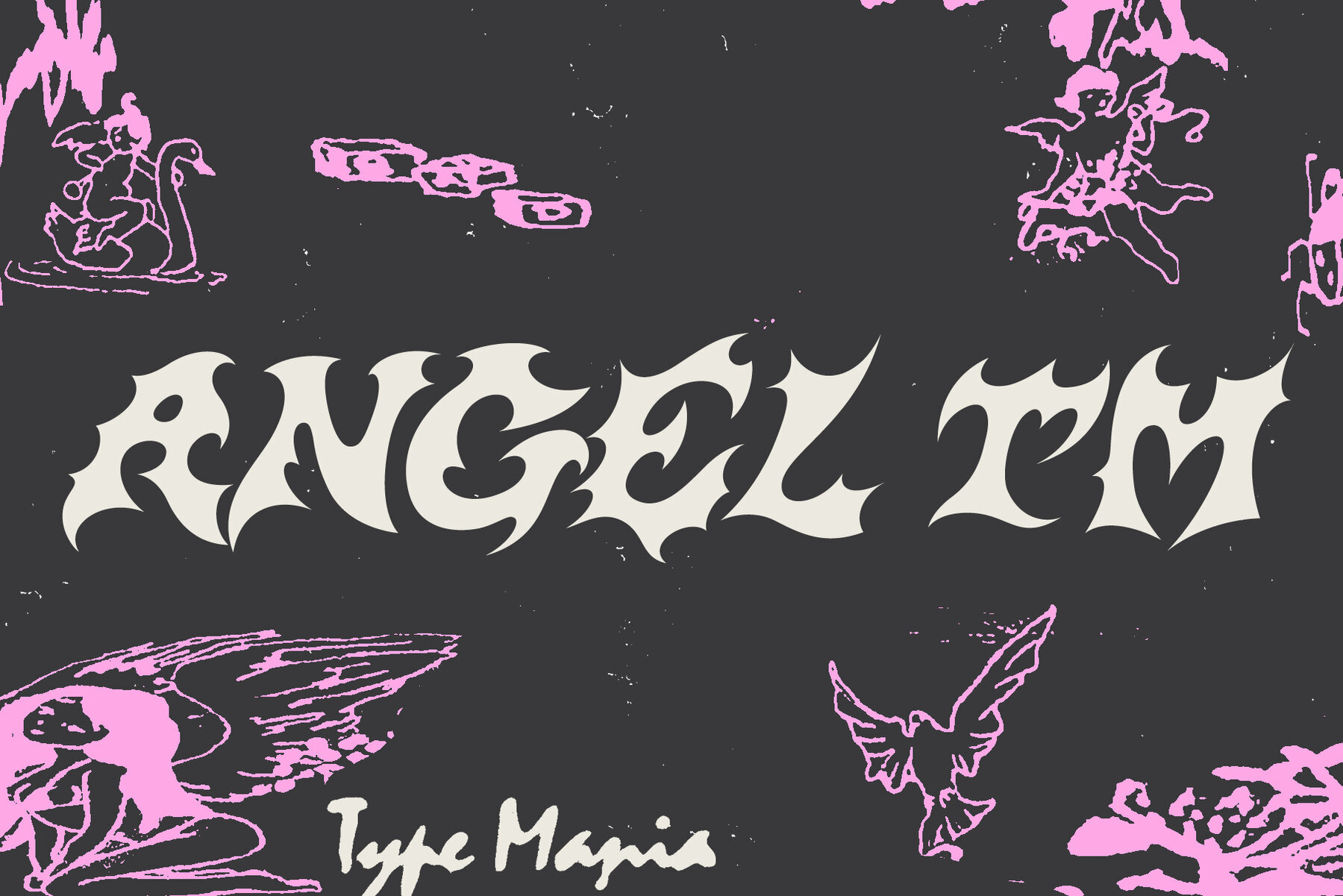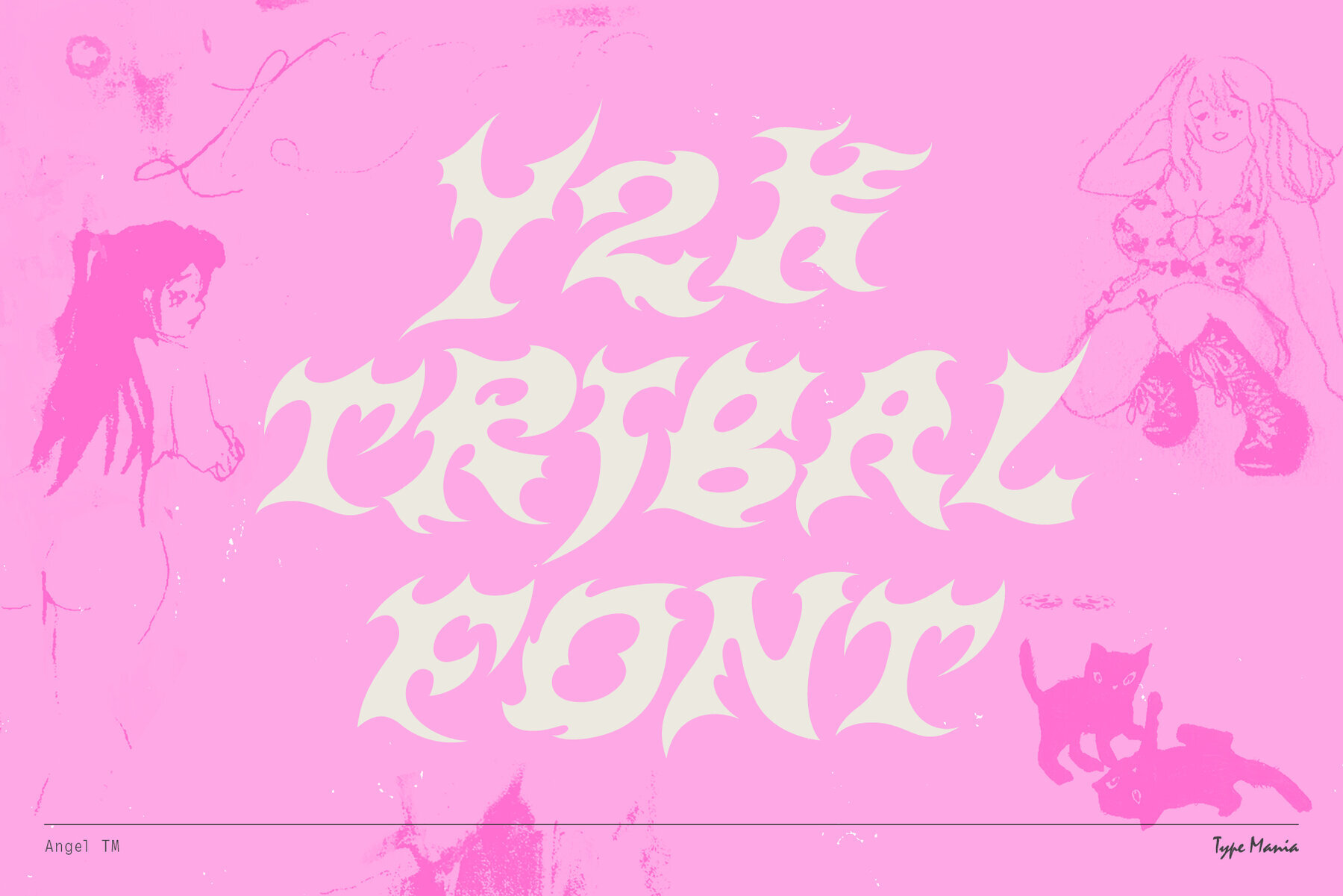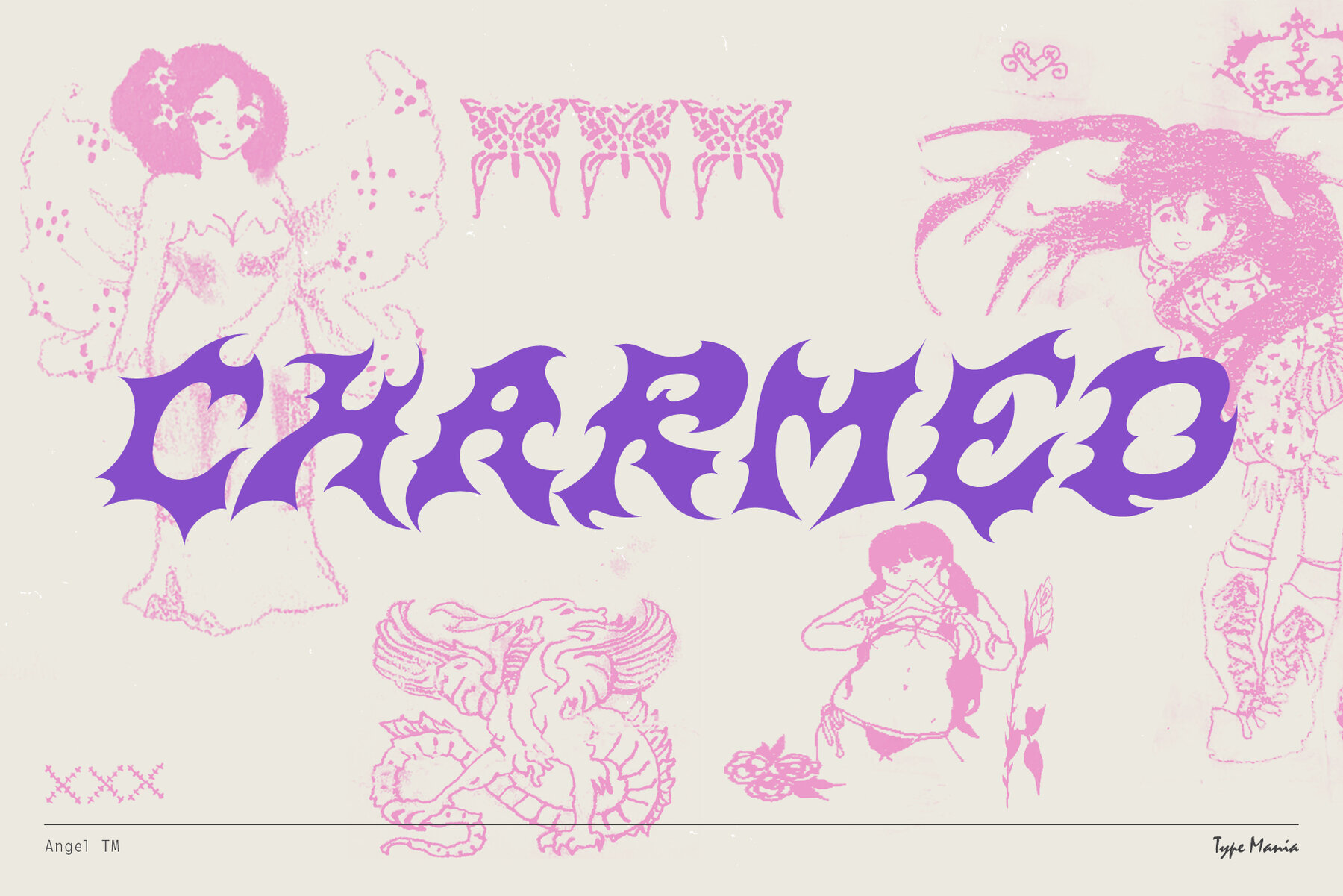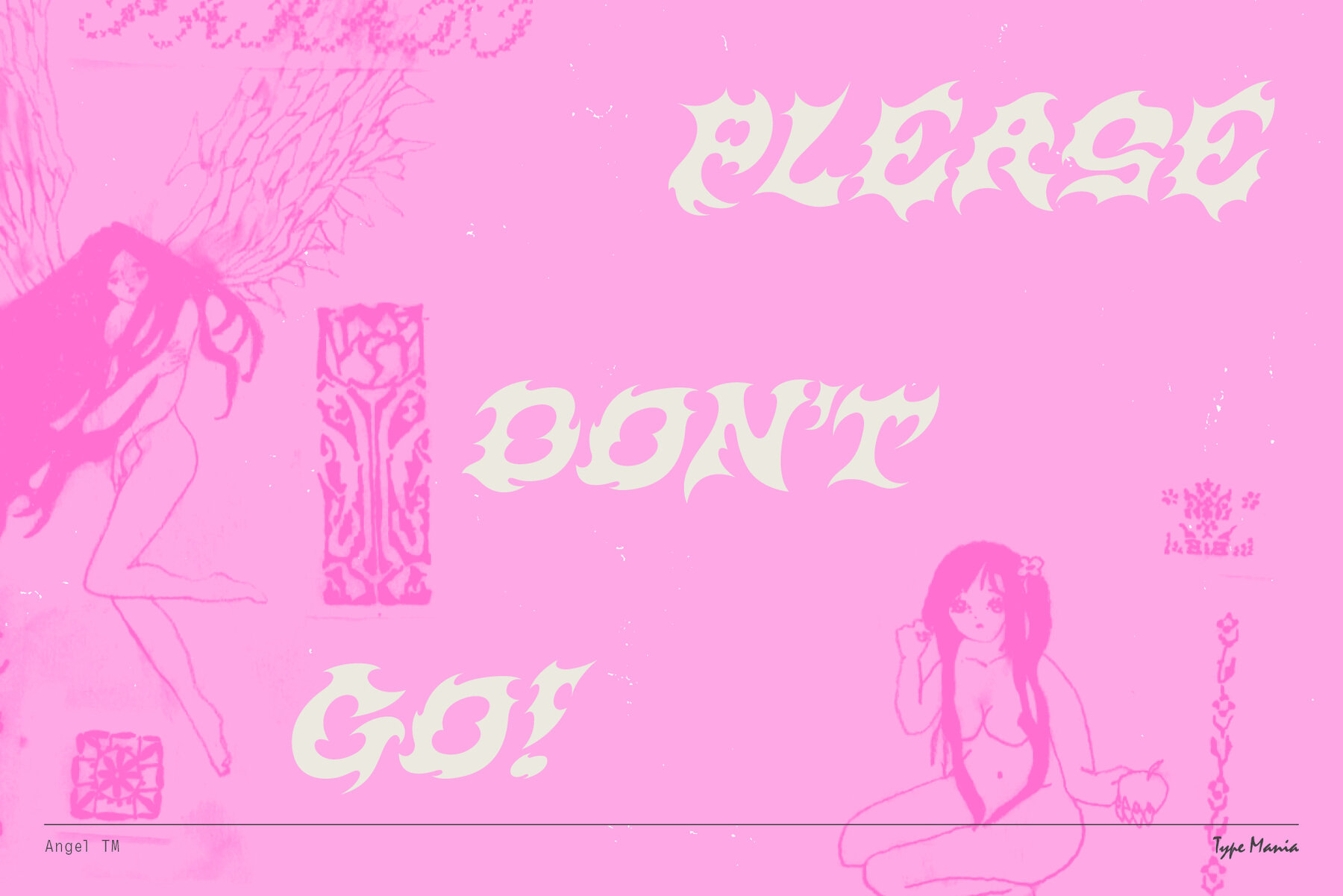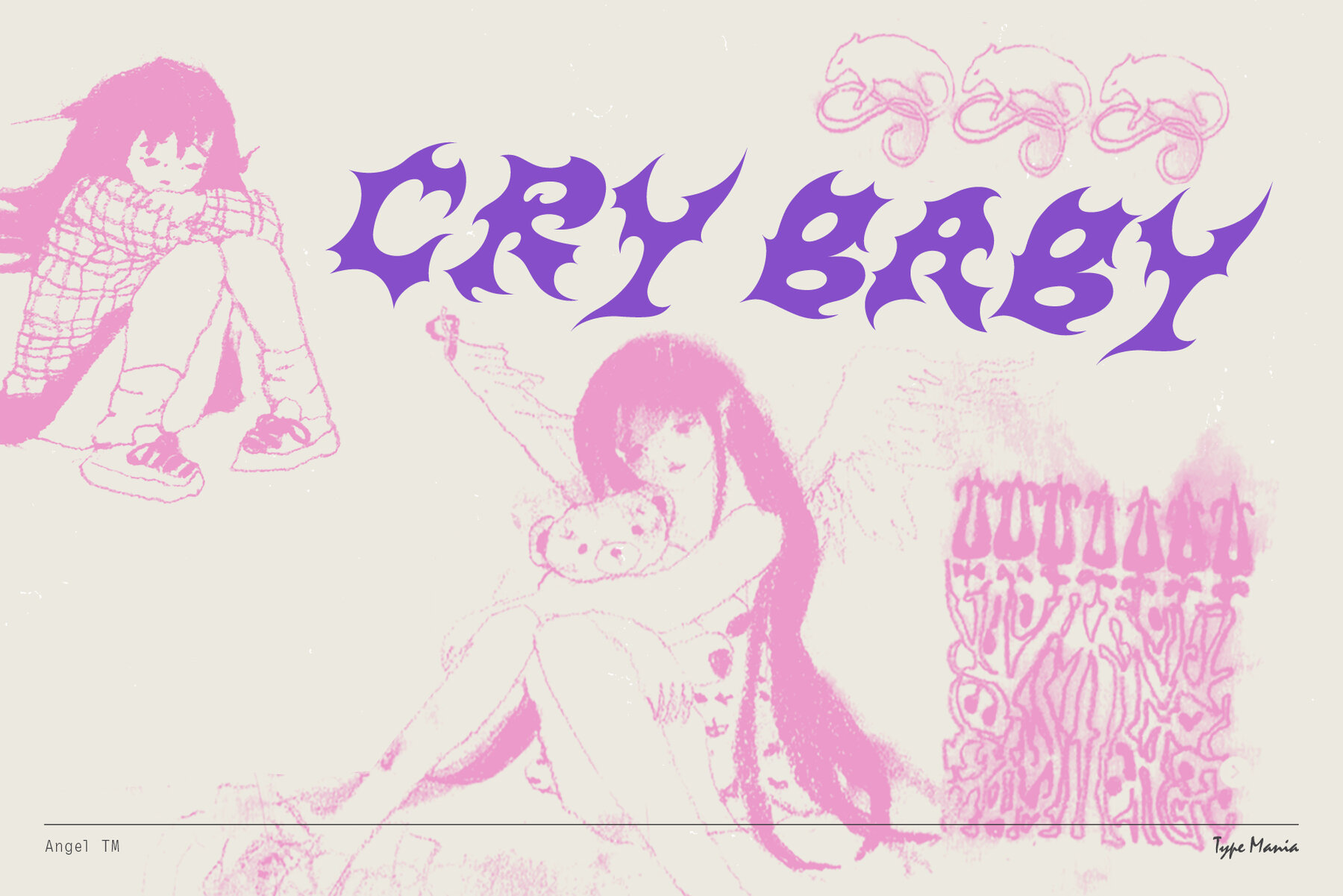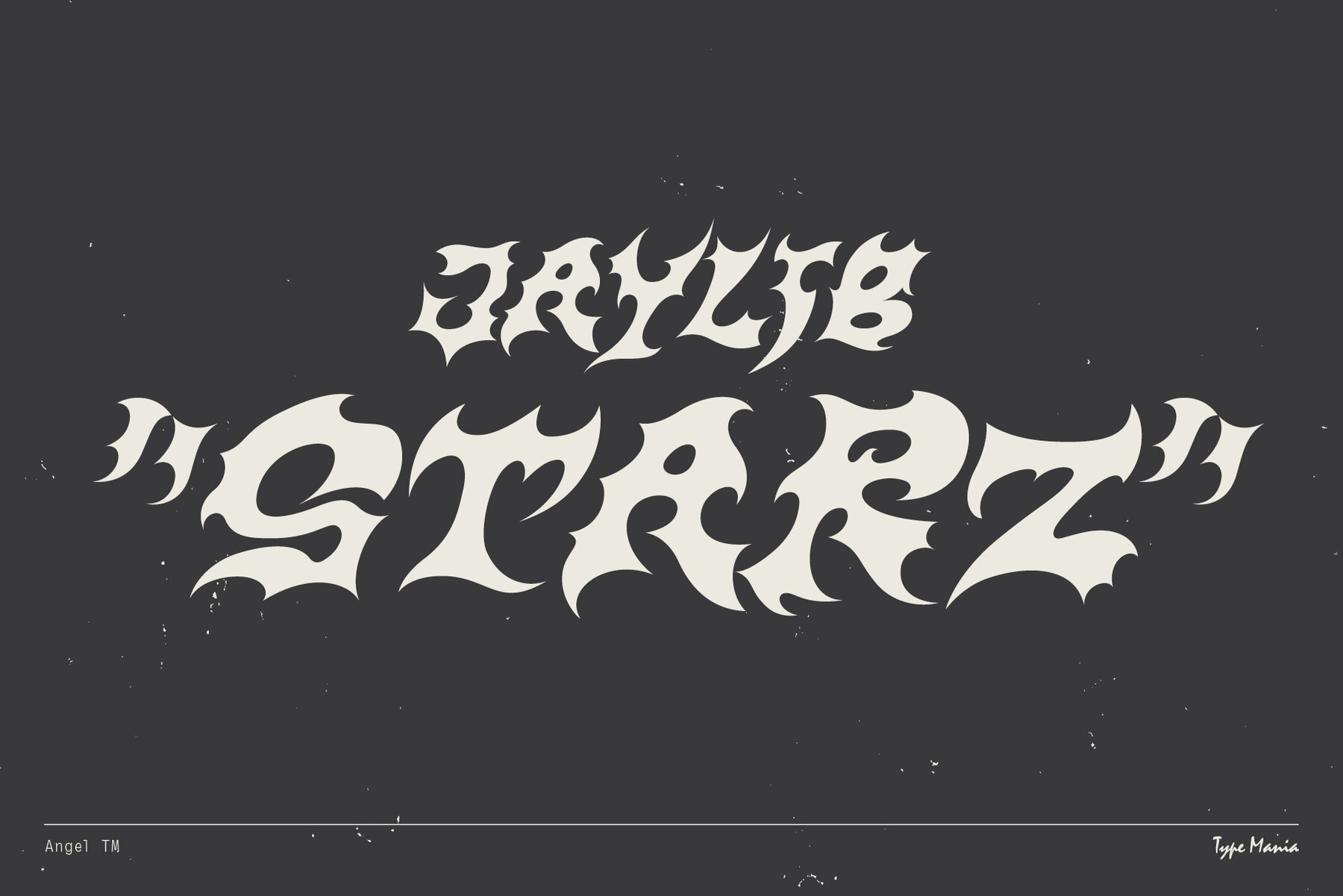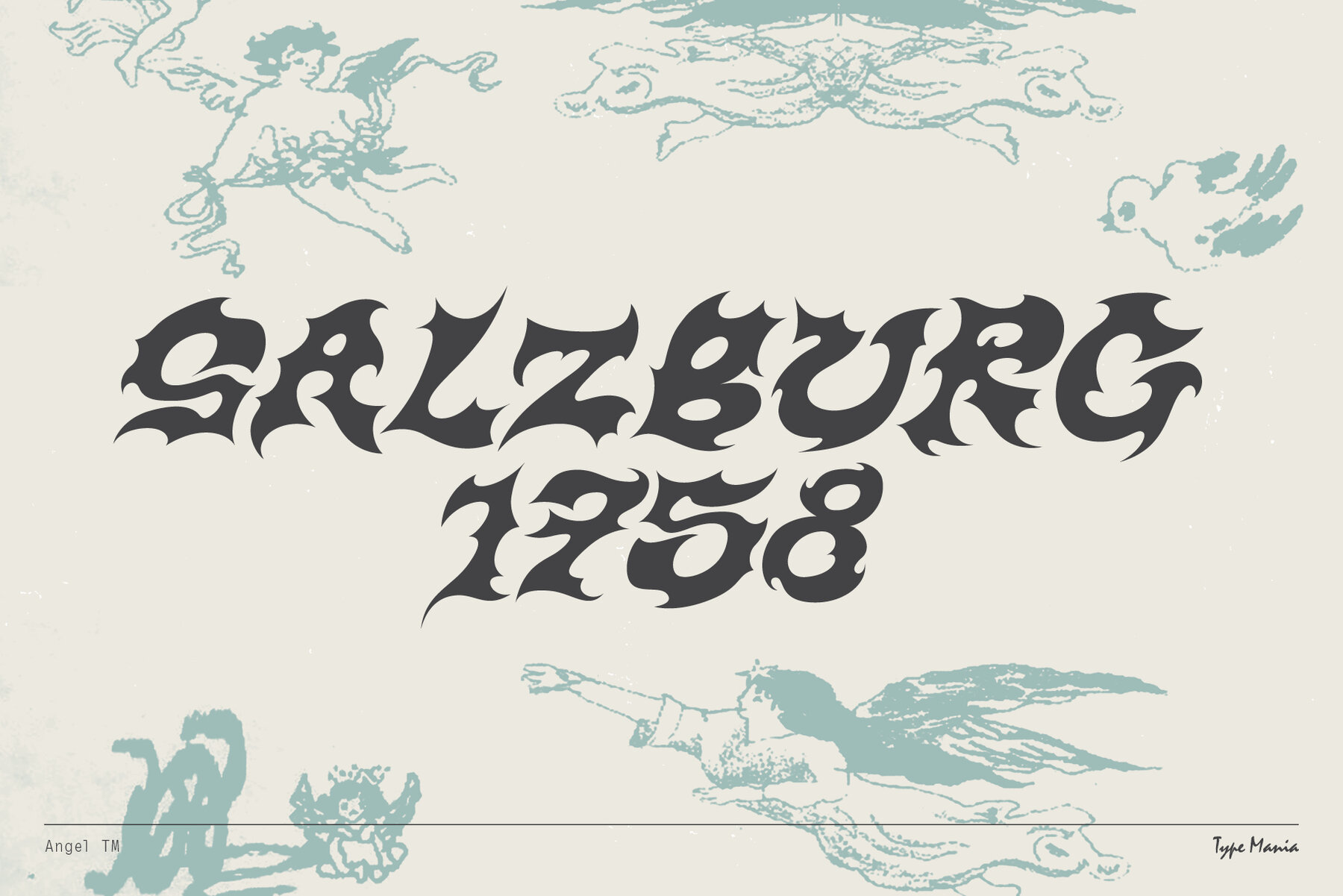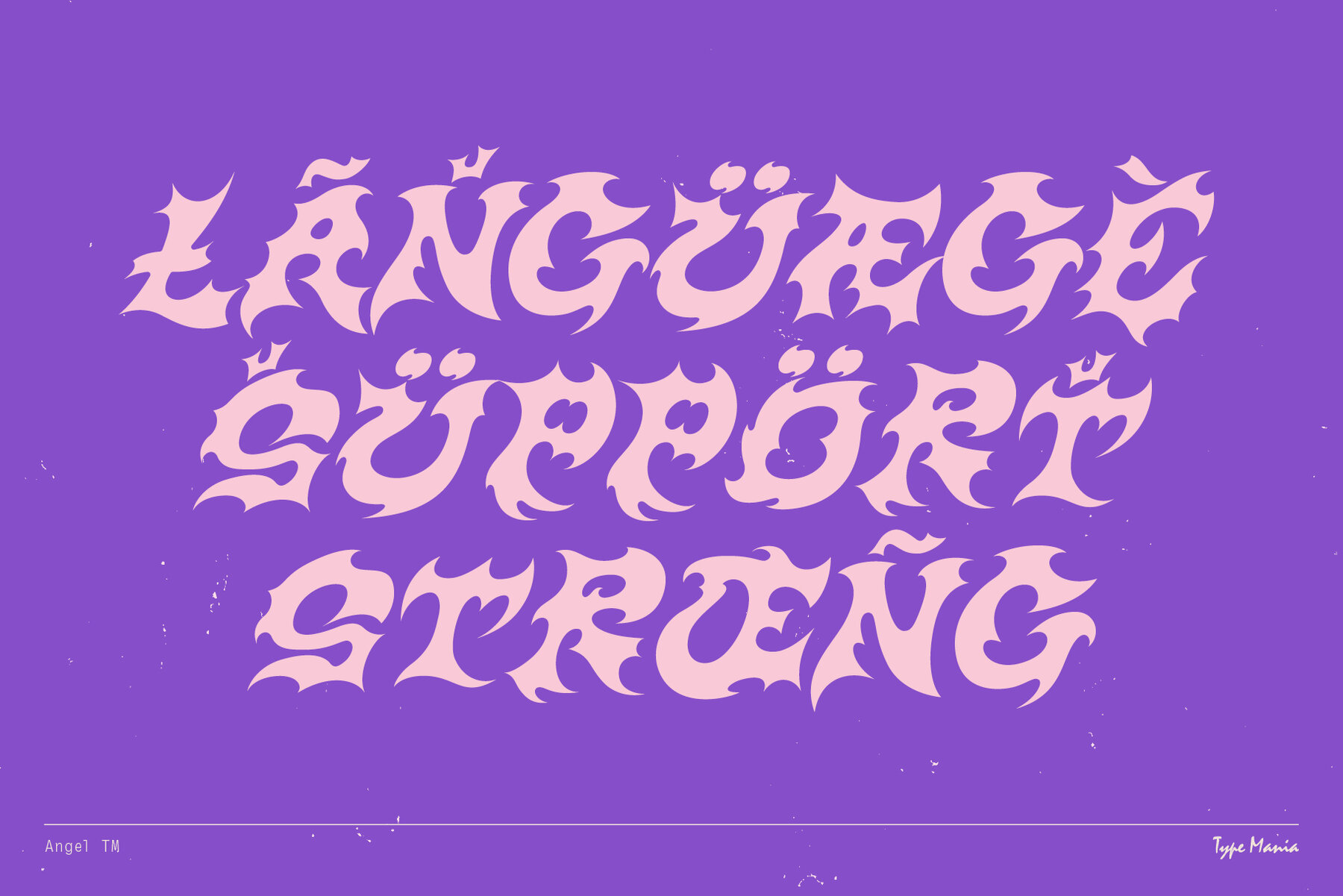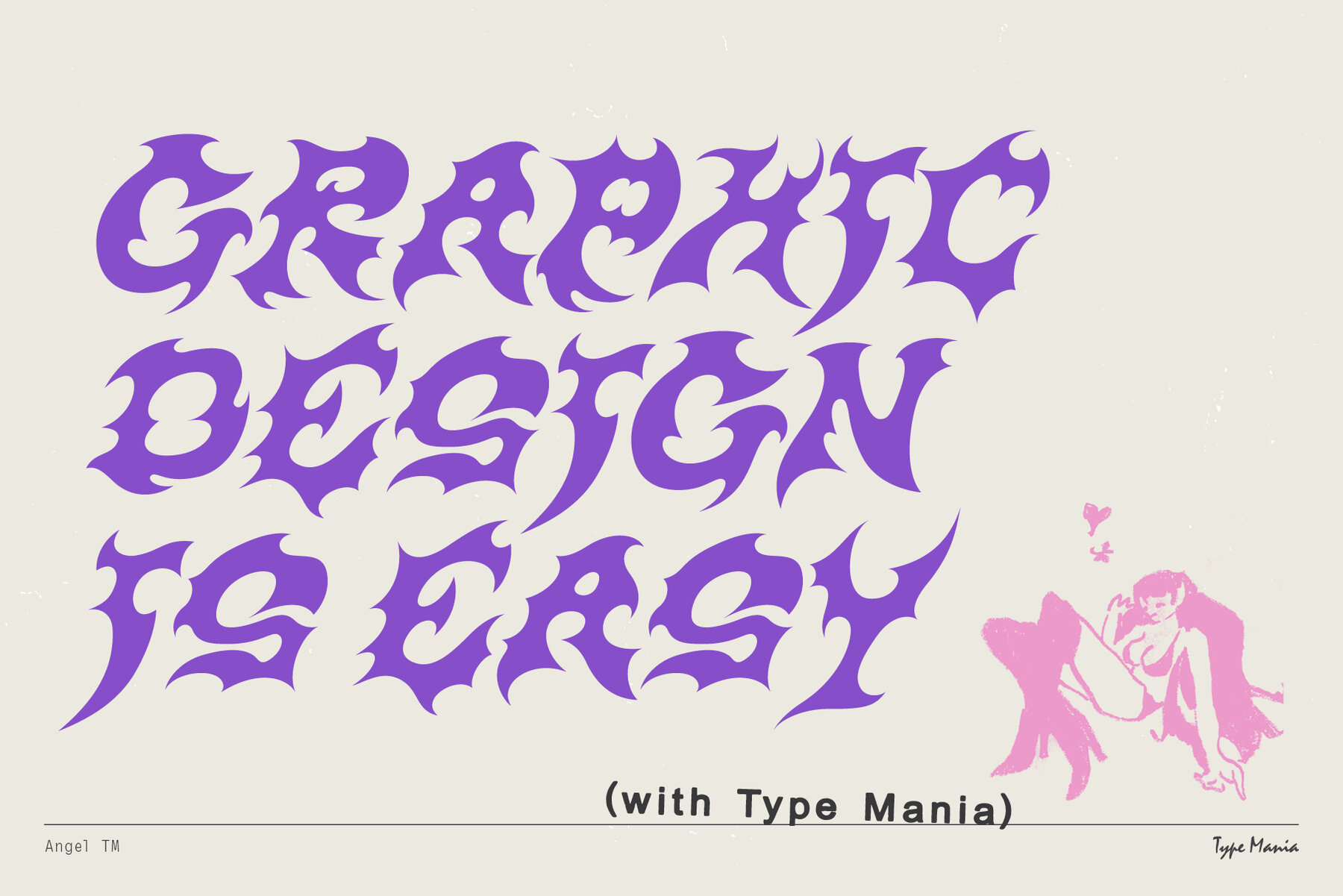
Angel TM Font
Angel TM Regular
Angel TM is the capping Y2K tribal font that provides a sharp, nostalgic touch to your designs. Perfect for use in logos, apparel, posters, and digital art, this font brings the edgy vibe of the early 2000s to your projects. With its distinct, angular lines, Angel TM gives a bold and unique flair to visual compositions.
Ideal for graphic and digital designers seeking a retro aesthetic, Angel TM combines modern design principles with a nostalgic twist. Add a striking element to your creative work, making each piece stand out with a bit of early 2000s edge.